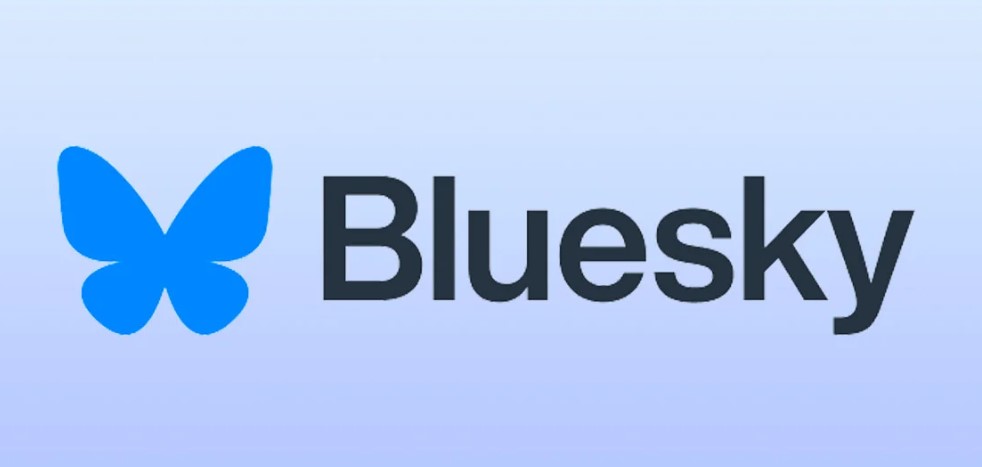
Bluesky declares itself as Twitter’s successor with new identity
The renaming of Twitter to X in July 2023 caused quite a stir, as Elon Musk’s unexpected move disappointed many users and raised concerns about the future of the social network. Amidst this backdrop, few people recall an interesting fact related to the short blog service – the existence of Bluesky, a twin of Twitter on the web.
Bluesky was launched in 2021 by Twitter’s former CEO Jack Dorsey and software developer Jeremie Milller. It operates on a decentralized social network protocol and has been in test mode, with user sign-ups limited to pre-applications.
Initially, Bluesky served as the name for a Twitter project focused on developing an open social protocol. The company decided to retain this name for the resulting network due to its memorability and representation of an open space of opportunity.
As Bluesky continues to evolve, it is shaping its identity by introducing new features, including a logo. The logo will feature a blue butterfly, symbolizing Bluesky and replacing the previous blue and white blocks that often represented the platform’s name, being displayed against an image a blue sky with white clouds. According to Jay Graber, the CEO of Bluesky, the butterfly represents the emergence of the platform, much like a butterfly emerging from its chrysalis.
The blue butterfly in Bluesky’s logo seems to resemble Twitter’s blue bird, evoking a sense of fluttering rather than tweeting. By leveraging positive and cheerful associations, the logo presents the idea that Bluesky can be a viable alternative to Twitter/X.
To complement the icon, the company opted for an unassuming black sans-serif wordmark, reminiscent of the Nista font family. The platform has also introduced a new app with a simpler and more attractive design, departing from the previous strict, technology-focused aesthetic.
While some Bluesky users find the butterfly’s outstretched wings reminiscent of a “W” (a letter featured in “Twitter”), interpreting it as a subtle and clever dig at Musk’s X, others question the symbol’s choice. They note that butterflies often symbolize things that are frivolous, fragile, and ephemeral, which may not align well with a solid and enduring service.
Nonetheless, according to Graber, the butterfly reflects Bluesky’s decentralized technology, enabling multiple social networks to interact with one another. This allows users to seamlessly navigate between different applications within an integrated super network.